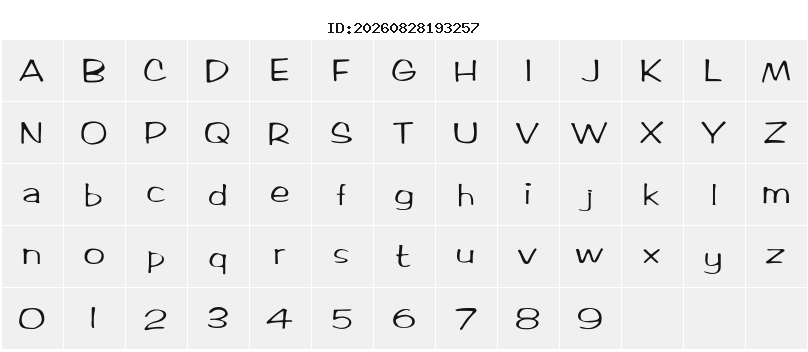
Ticard Preview
• Font Name: Ticard
• Full Font Name: Ticard
About Ticard.ttf
Ticard.ttf is a modern, elegant sans-serif font designed for ultimate readability and visual harmony. Perfect for branding, headlines, web design, and print materials.